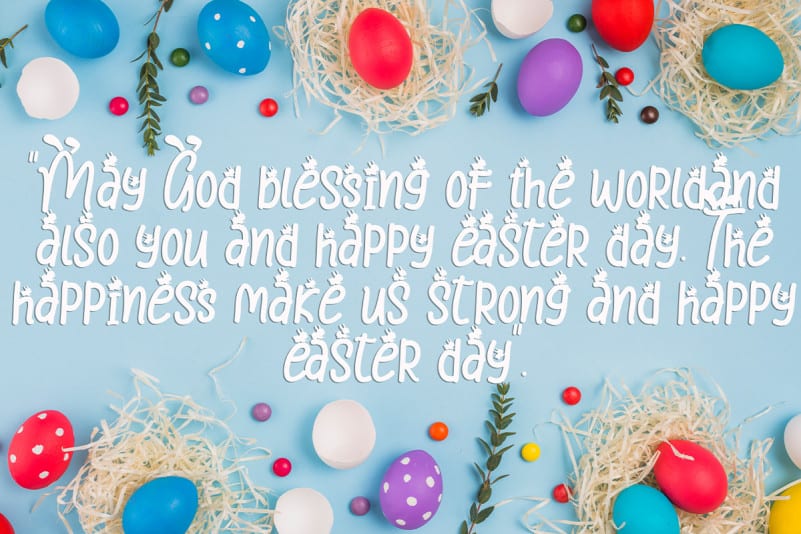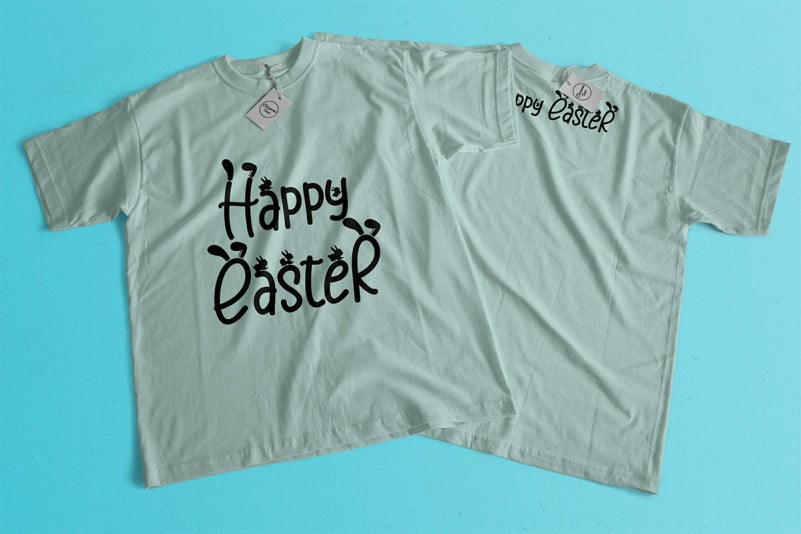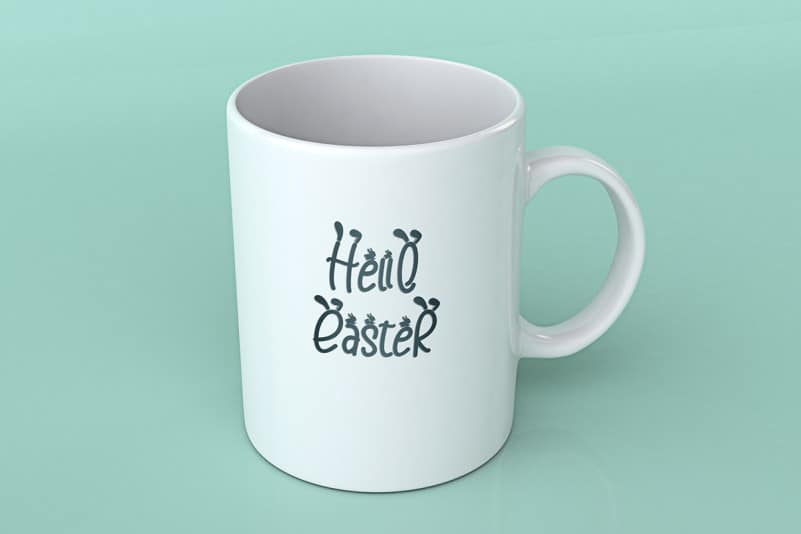
Easter Day Display Font
Easter Day Display Font is a very cute and unique font. The font is embellished with a bunny shape which adds to the funniness of this font. This font is very easy to use because it is specially designed, so it will be very easy to bring out the embellishment of the letters. Easter Day is perfect for Easter celebrations, logos, branding, banners, book titles, movie titles, animation, children’s world, promotions, business and more.